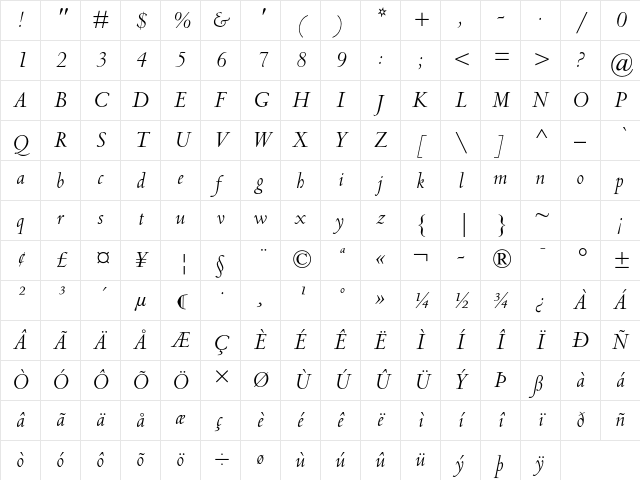
Centaur MT Std Italic
Designer: Bruce Rogers, Frederic Warde
Complete Centaur MT Std Italic glyph index. Displaying only characters natively supported by Centaur MT Std Italic font.
Design Context for Centaur MT Std
Centaur MT Std is a composed and adaptable typeface that performs quietly and consistently across a wide range of design contexts. The slanted form adds forward momentum and visual energy.
Pro Tip: Use Centaur MT Std for emphasis, pull quotes, and subheadings where its slanted energy can add rhythm to the layout.